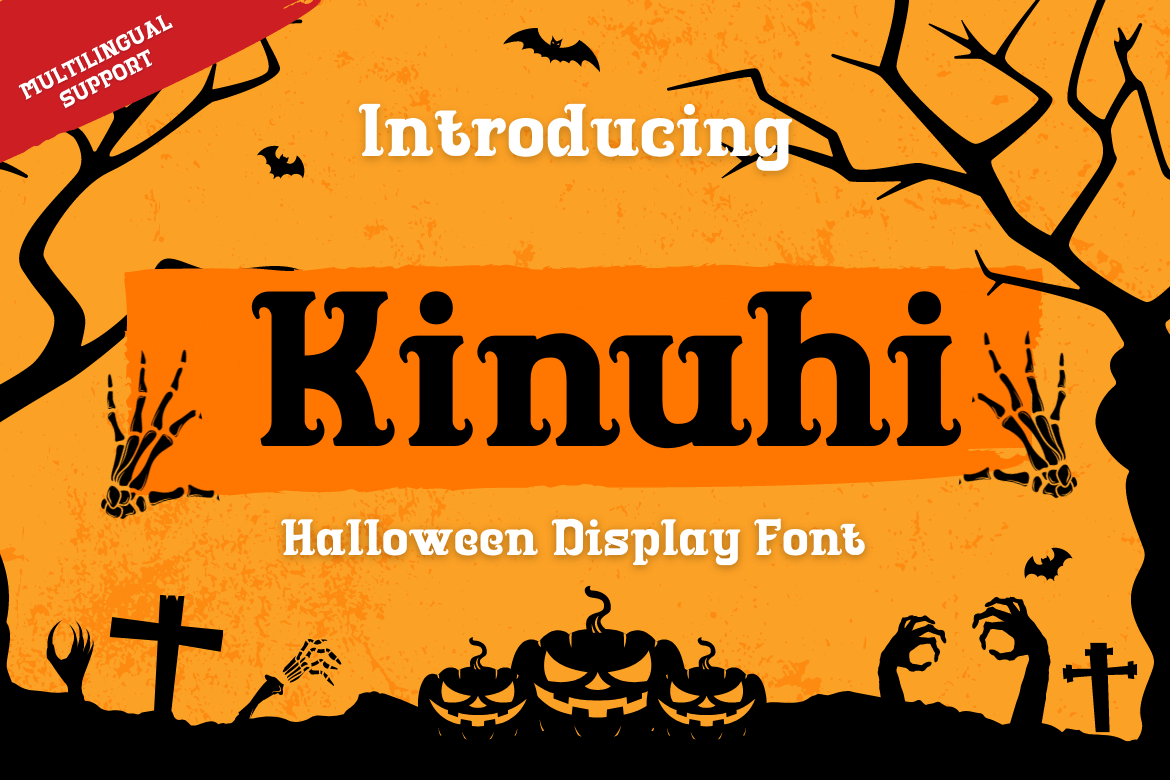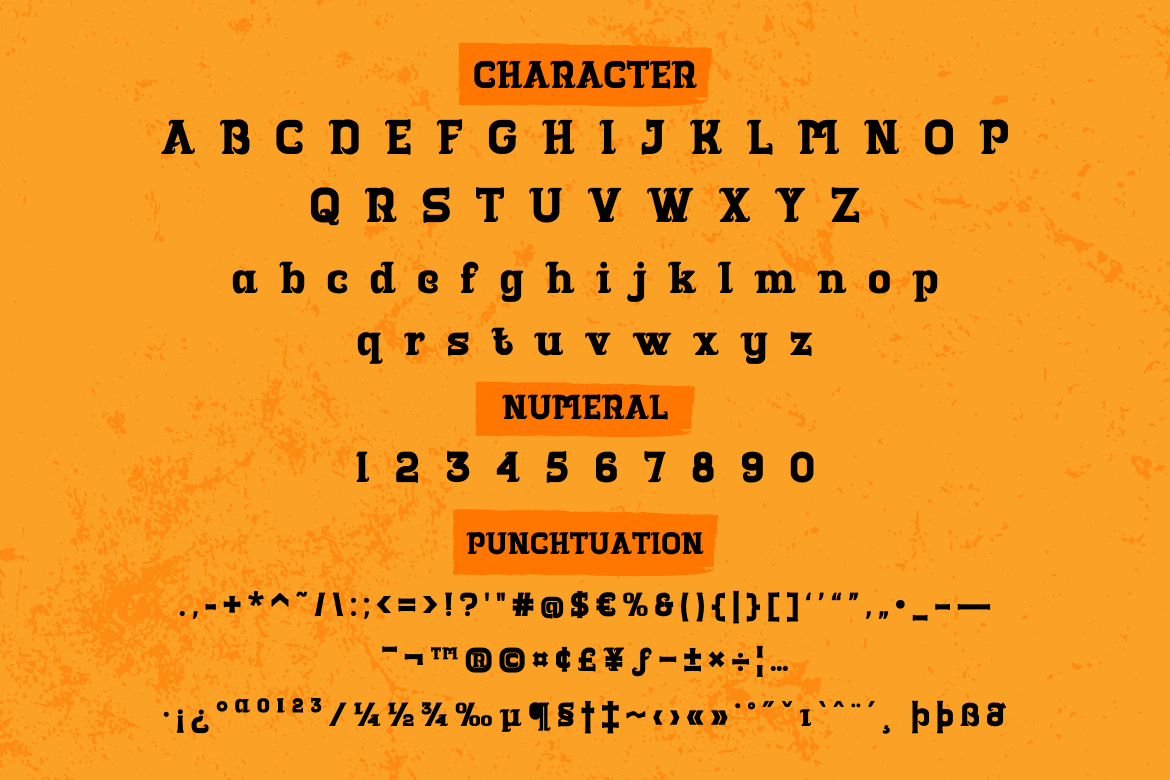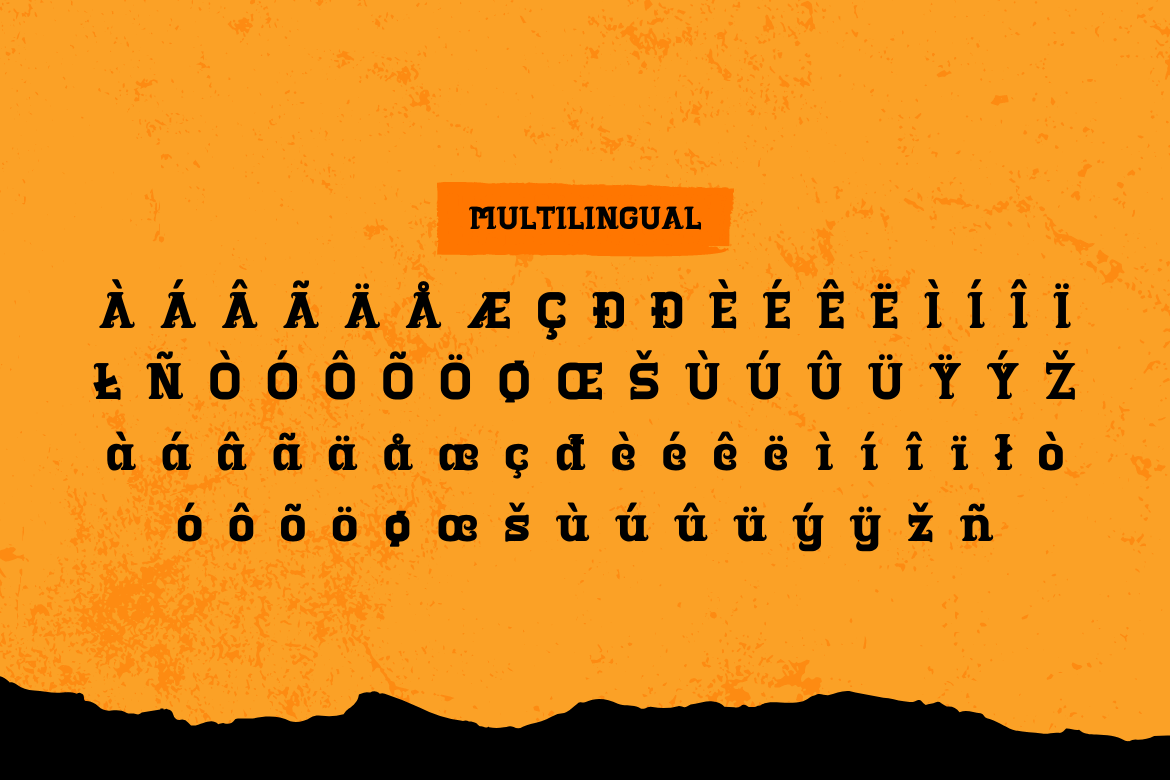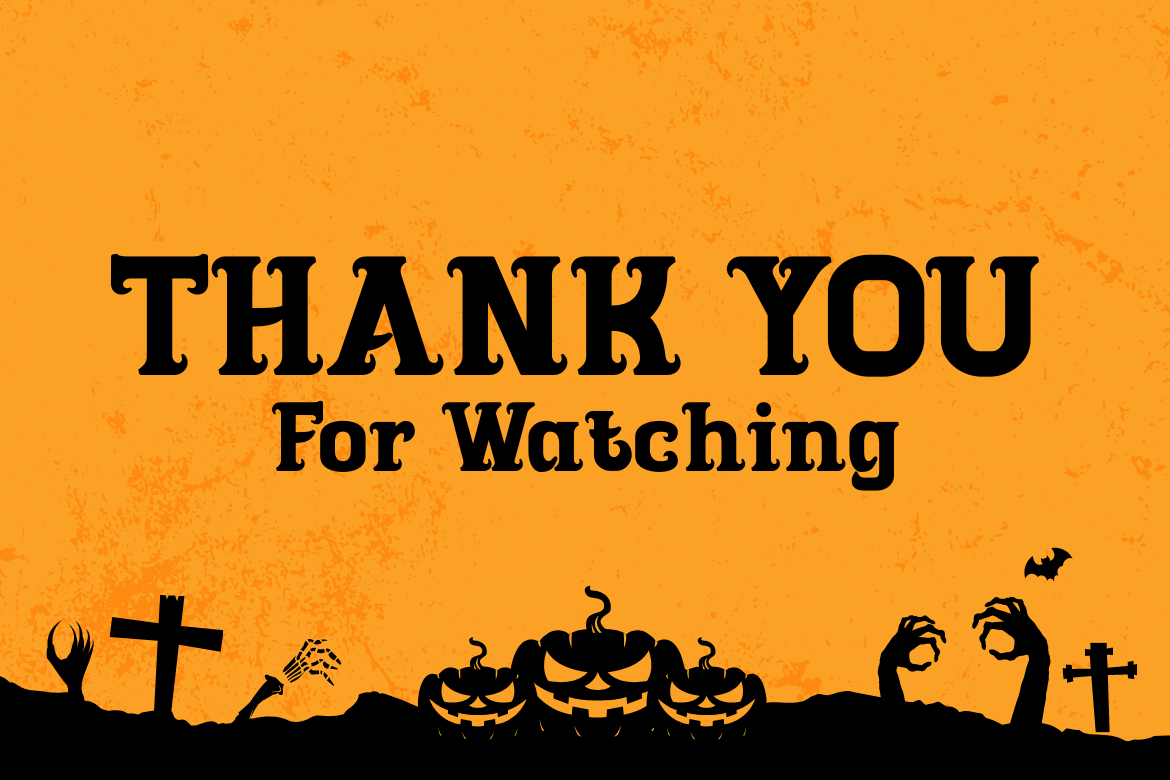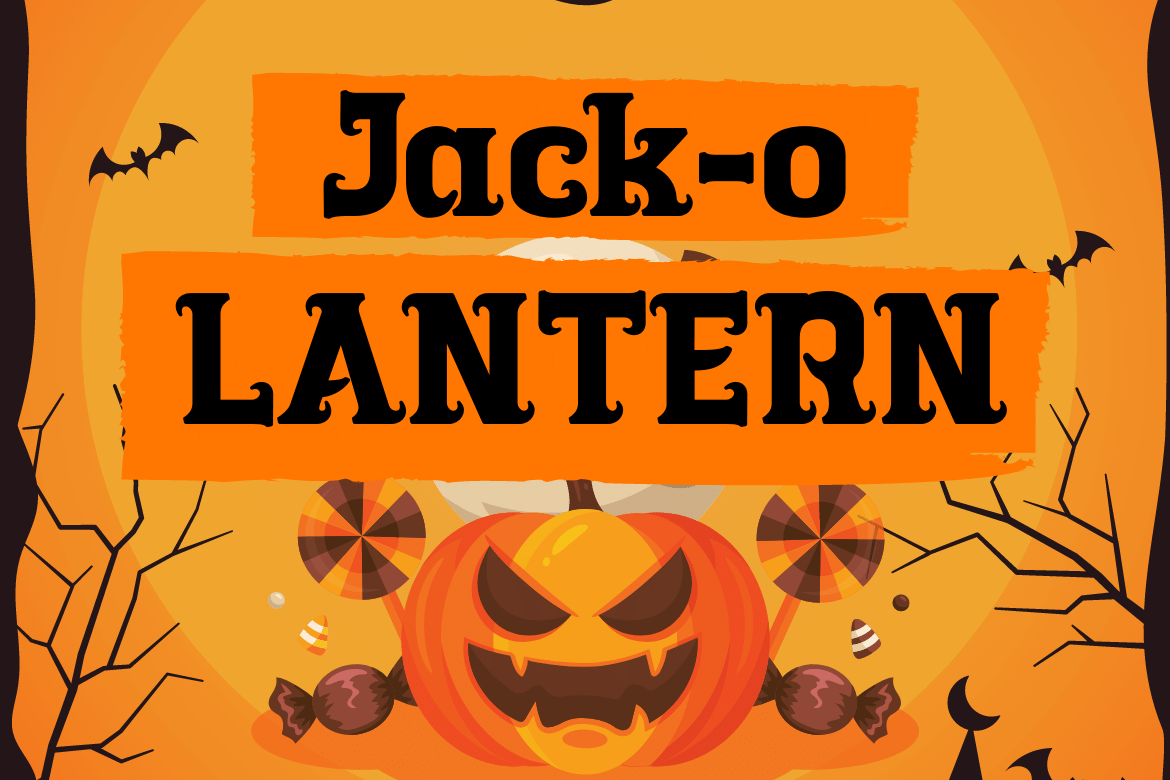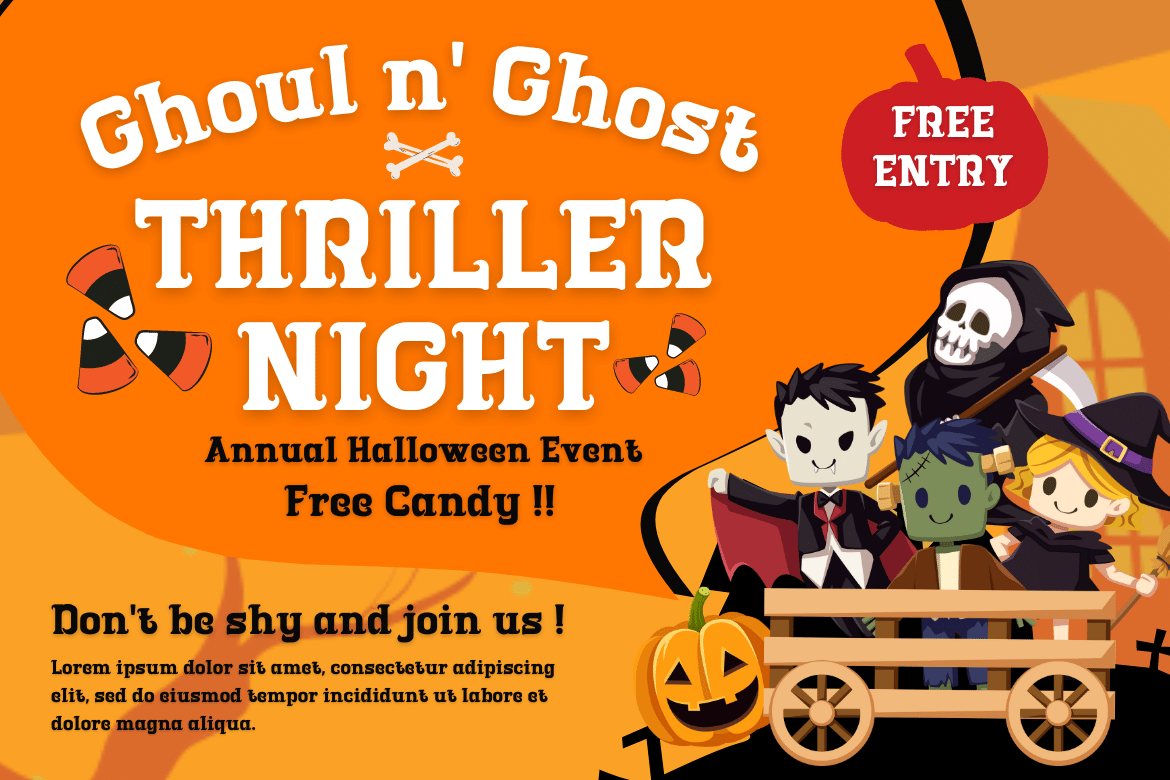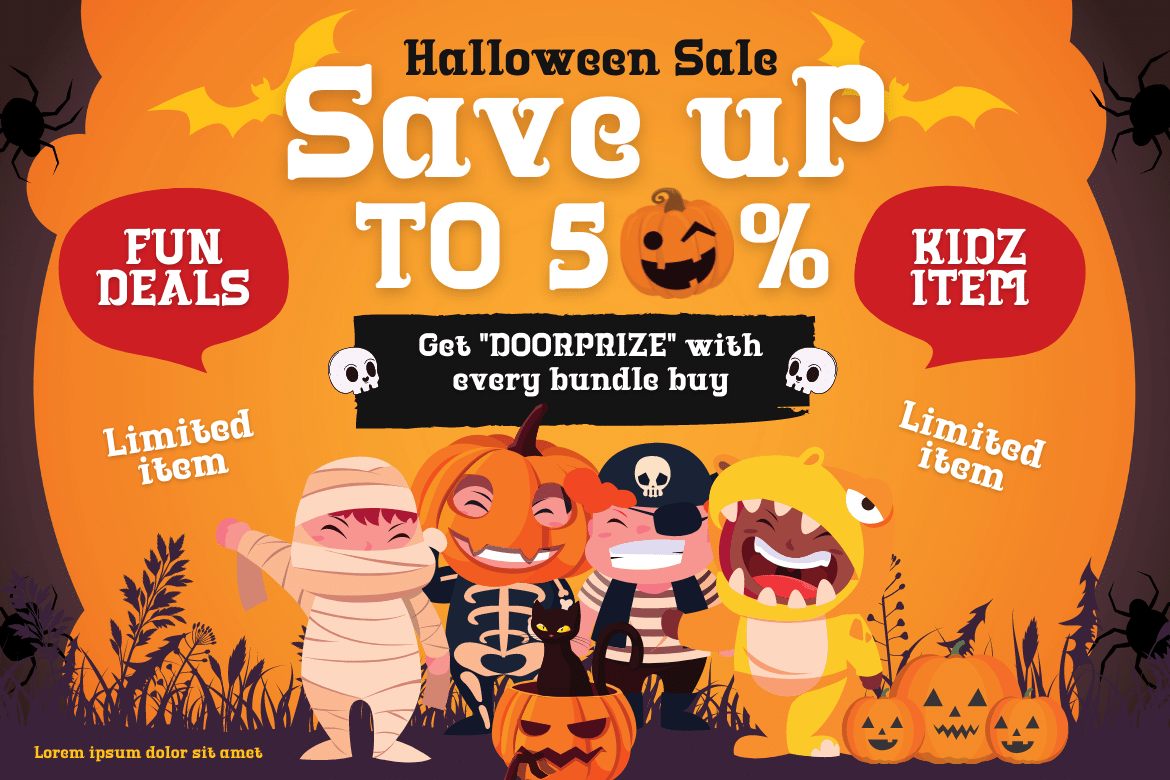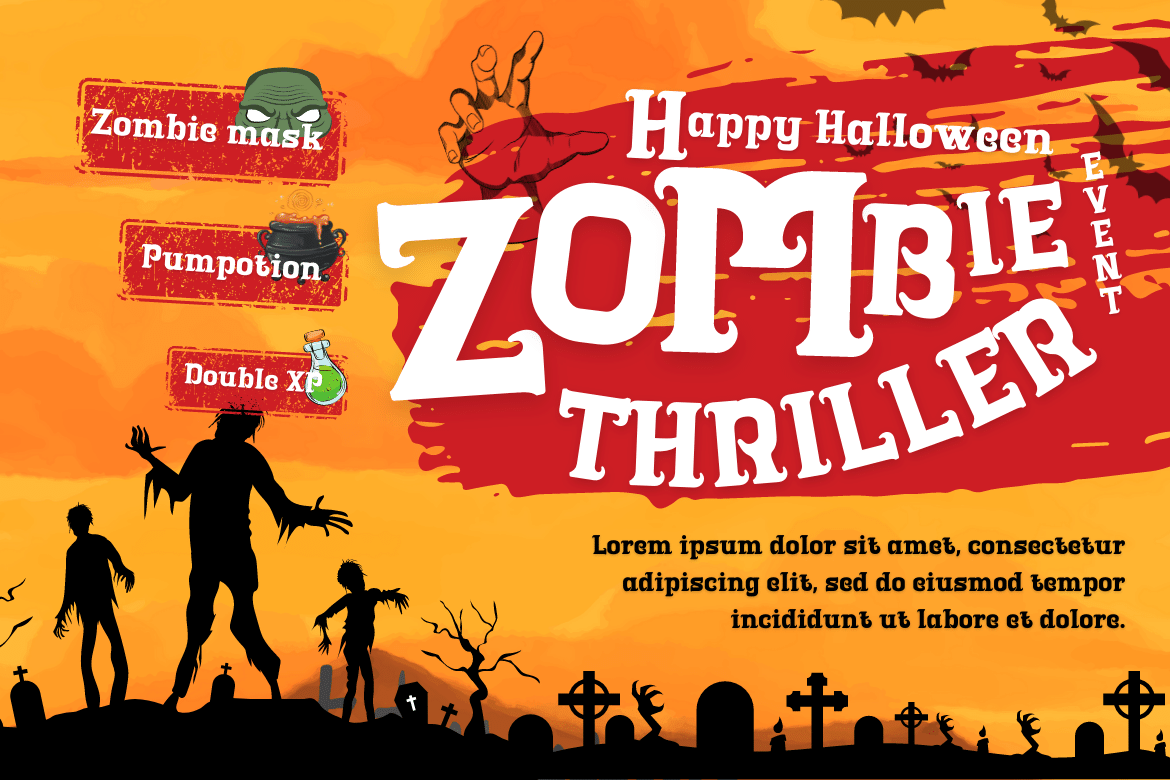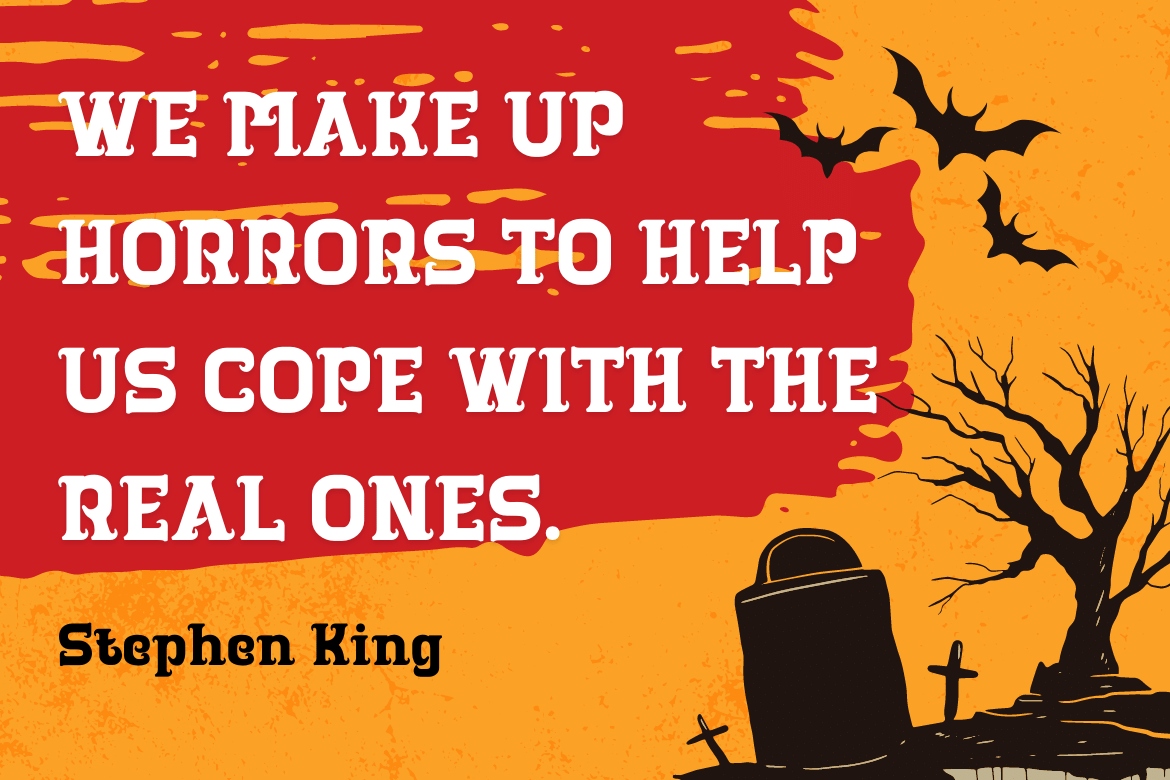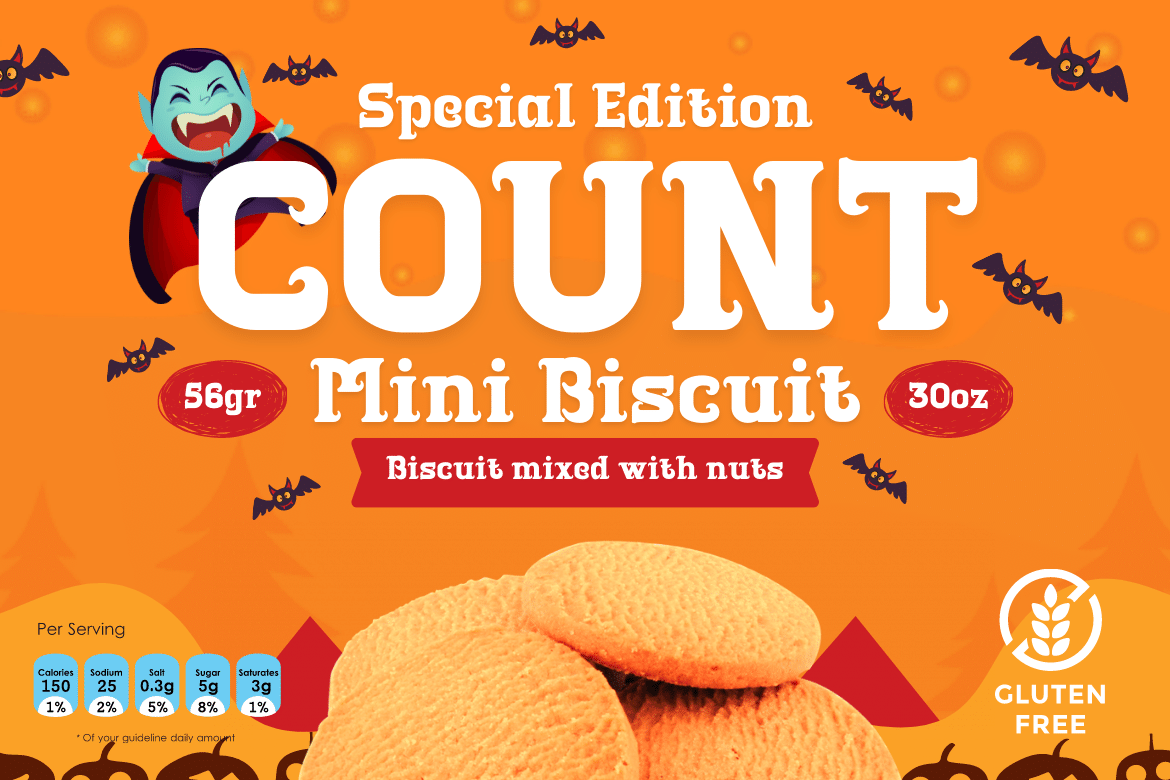
Kinuhi
Introduce a display font named Kinuhi.
What can you do with a font like this? With a simple line of code and some creativity, you can make it the centerpiece of your next snowboarding gear or create a cool logo for your design agency. Or, maybe use it to quickly make a fun Halloween party invitation. The possibilities are endless.
Of course with this font your various design projects will be perfect and amazing, get a beautiful title and start using our font for your special project.